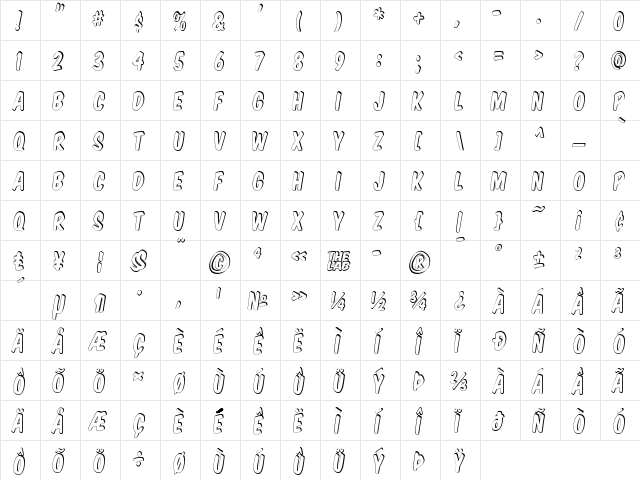
Komika Title - Shadow Regular
Design Context for Komika Title - Shadow Typeface
Komika Title - Shadow brings ornamental detail and strong personality to headlines and identities, where visual impact matters more than quiet functionality.
Font Pairing: Pair with a clean neutral sans-serif for body copy to let Komika Title - Shadow's character lead without overwhelming the composition.
Pro Tip: Treat Komika Title - Shadow as the centrepiece of your typographic hierarchy. One strong heading set in a decorative face can carry an entire layout.